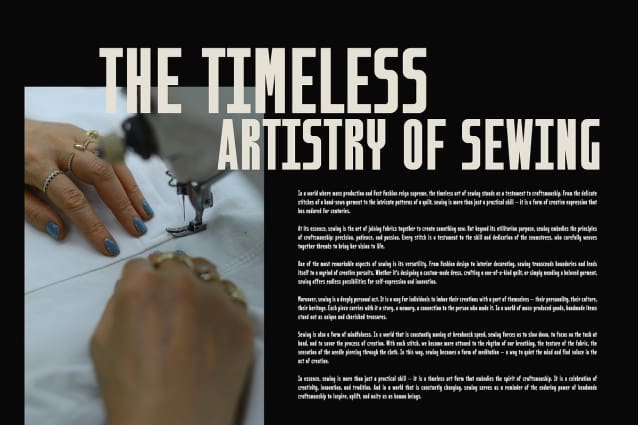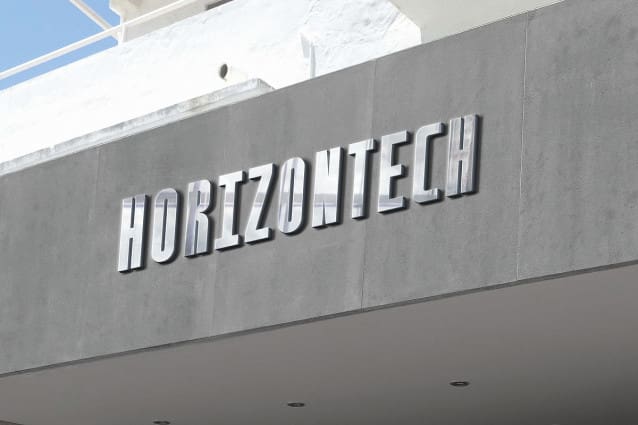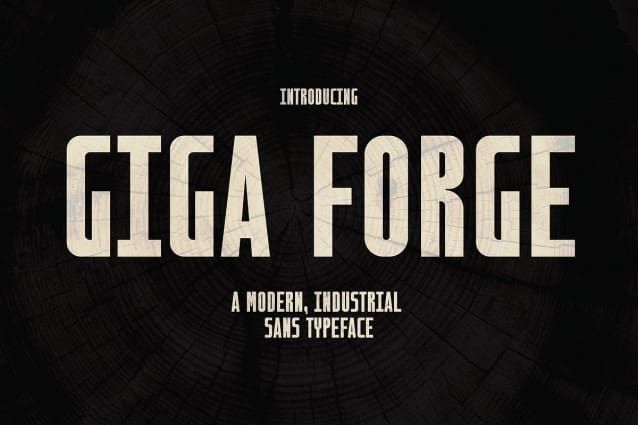
Giga Forge Font
Giga Forge Font is a typeface that stands tall and unyielding, much like the industrial landscapes that inspired its creation. This simple yet powerful industrial typeface has been crafted with a clear purpose: to serve as the backbone for projects that exude strength, masculinity, and the enduring spirit of construction and industry. With its solid, straightforward design, Giga Forge embodies the essence of hard work, reliability, and innovation.
Designed to make a bold statement, Giga Forge is perfect for brands and designers looking to convey robustness and durability. Its characters, with their block-like structures and impactful presence, are a nod to the raw materials and sturdy frameworks found in construction sites and manufacturing plants. The typeface’s versatility makes it ideal for a wide range of applications, from logos and signage to marketing materials and digital interfaces.